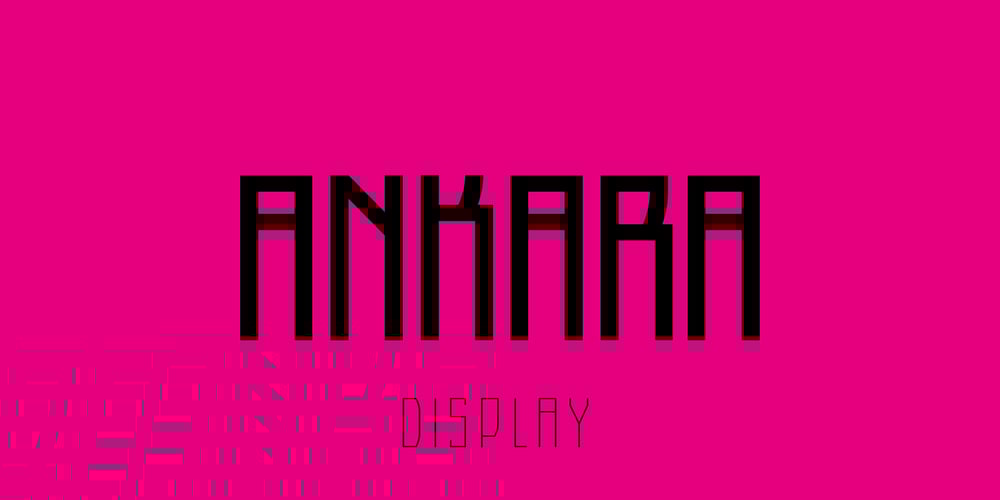
Ankara Font Family was designed by Koray Özbey and published by Koray Özbey. Ankara contains 3 styles and family package options. Ankara is a display font that inspired by the forms of high windows, doors and gates of buildings that constructed in the early years of Turkish Republic.